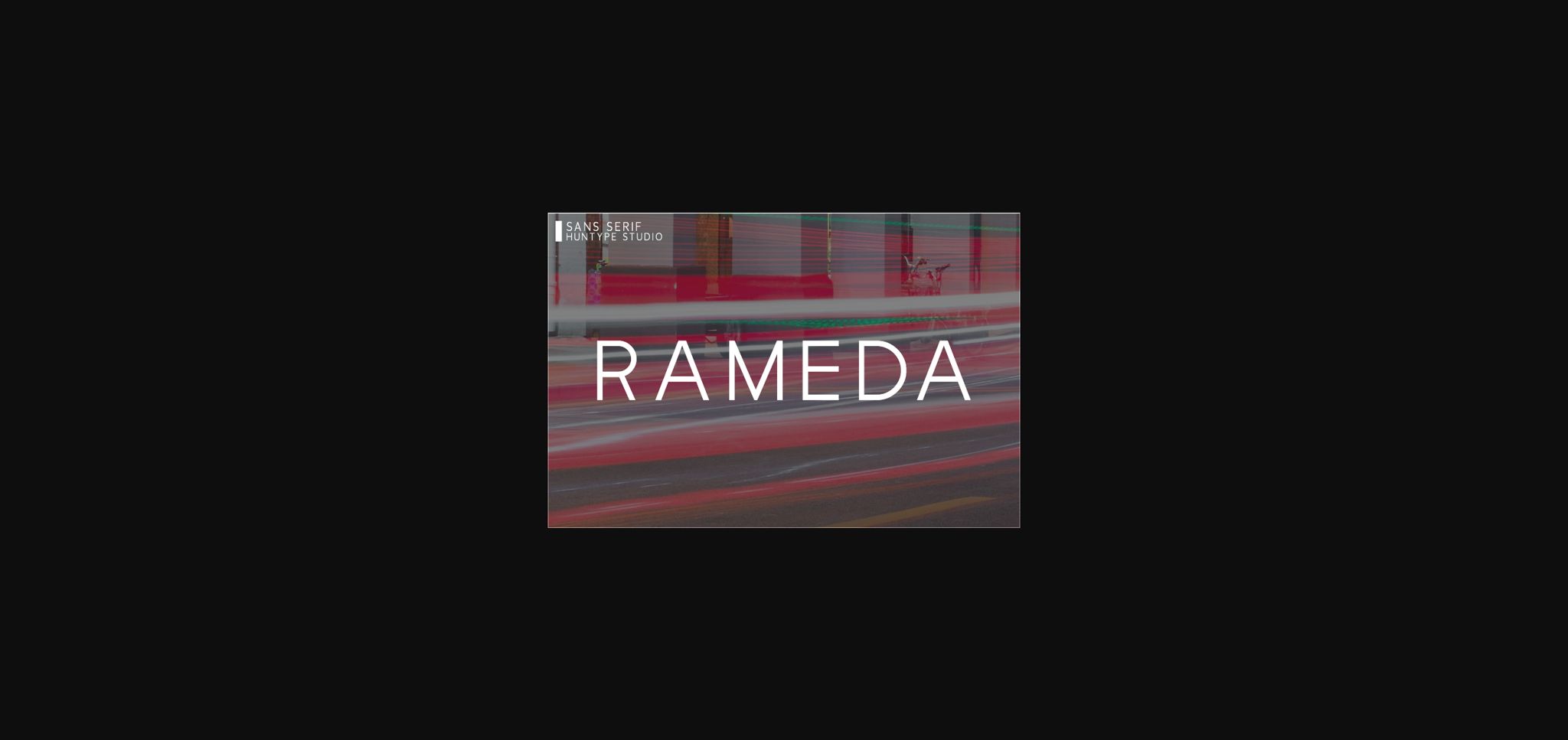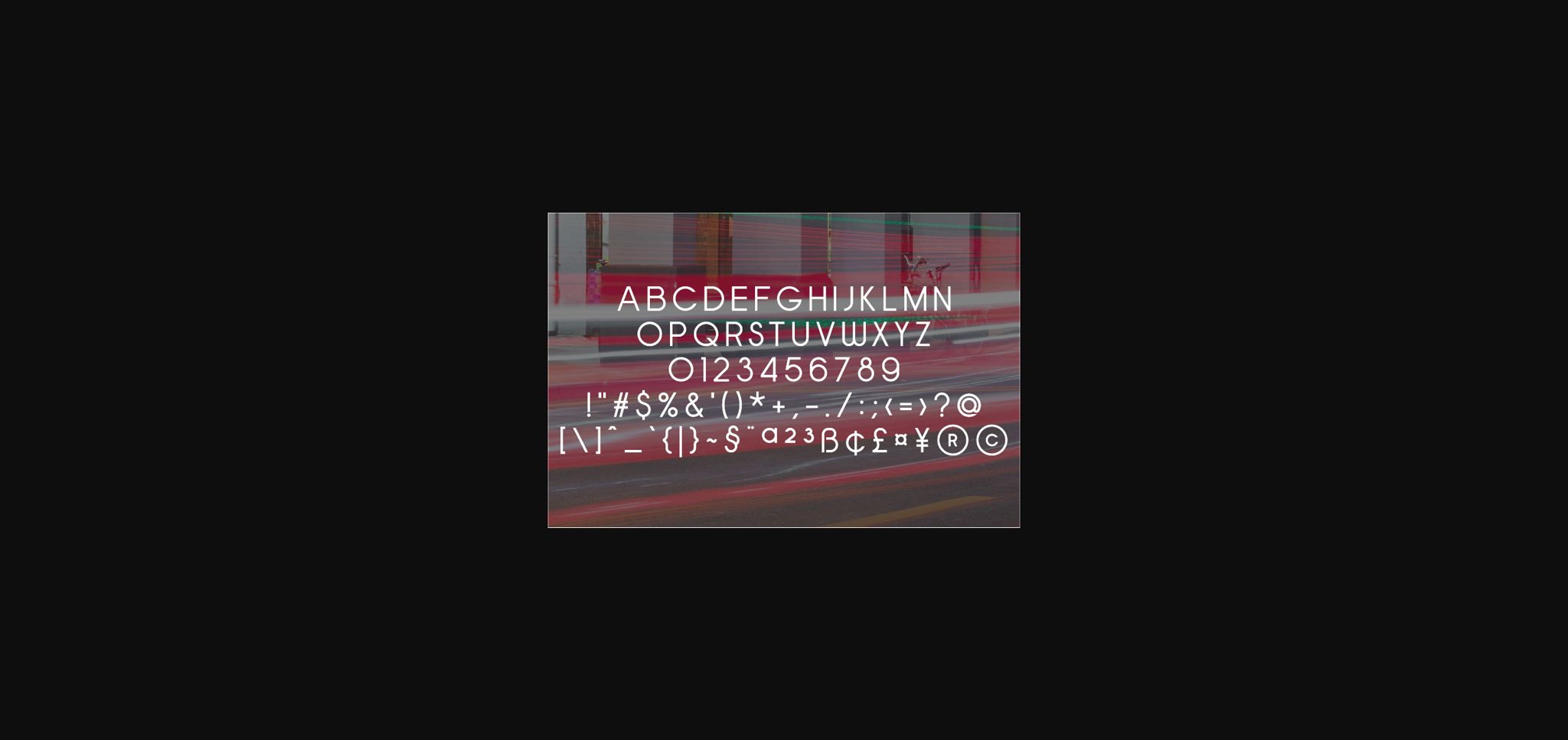
Rameda Font
About Rameda Font
Rameda is an elegant sans serif font. It will complement any design need perfectly with its perfectly balanced mix of the smooth and sharp!